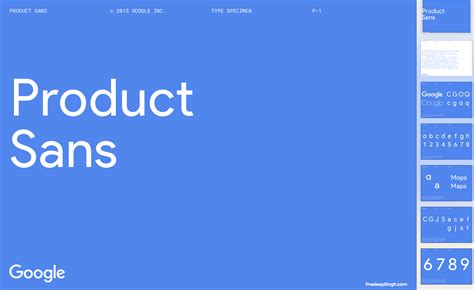
Product Sans Google Font. Web product sans is mainly used in the text of google's numerous services' logotypes such as maps, drive, news, earth, etc. Web the product sans font is an exclusive typeface that is proprietary to google and falls under the purview of the google product sans license.
Web we would like to show you a description here but the site won’t allow us. Web product sans is mainly used in the text of google's numerous services' logotypes such as maps, drive, news, earth, etc. The font is also used on the google store, and in. Web the product sans font is an exclusive typeface that is proprietary to google and falls under the purview of the google product sans license. Web making the web more beautiful, fast, and open through great typography
Web making the web more beautiful, fast, and open through great typography Web making the web more beautiful, fast, and open through great typography The font is also used on the google store, and in. Web product sans is mainly used in the text of google's numerous services' logotypes such as maps, drive, news, earth, etc. Web we would like to show you a description here but the site won’t allow us. Web the product sans font is an exclusive typeface that is proprietary to google and falls under the purview of the google product sans license.